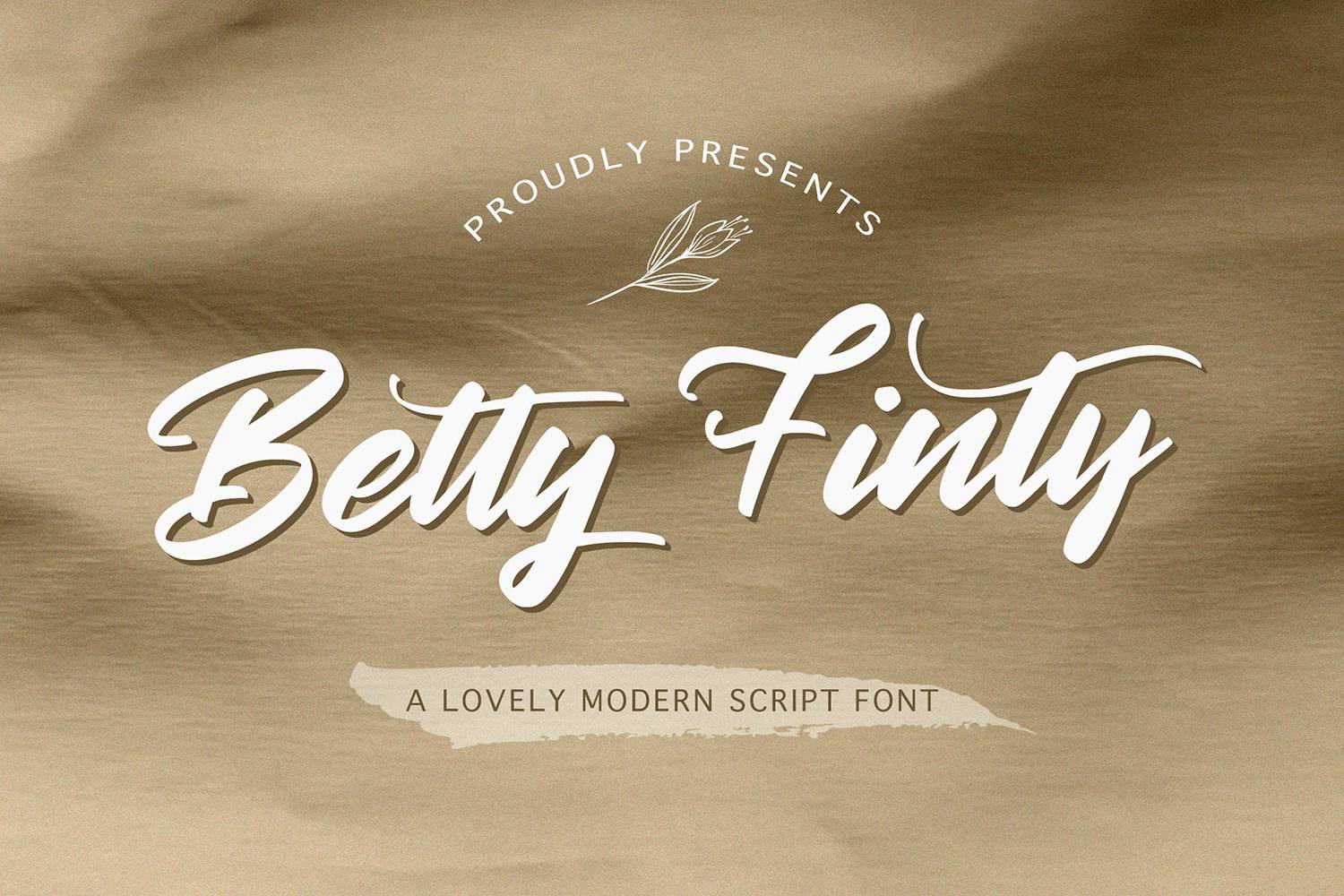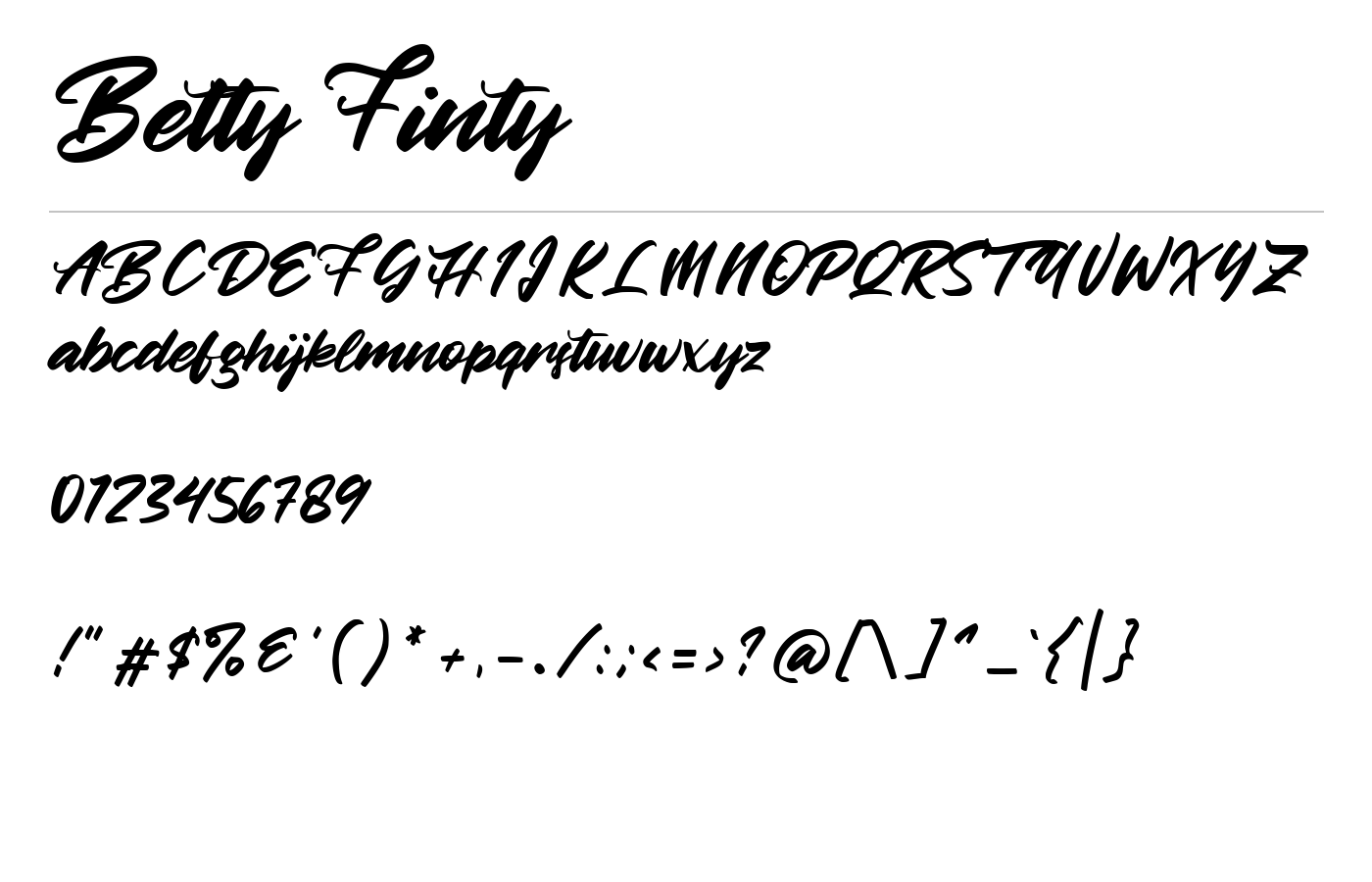
Betty Finty is a bold, flowing script font with a playful and casual feel, featuring smooth, rounded strokes and varying line thickness that mimic natural handwriting. Its energetic yet legible style makes it perfect for branding, invitations, or headlines where a friendly yet dynamic look is desired. This font shines in creative and personal projects that benefit from a lively and approachable touch.
Betty Finty Font
About Betty Finty Font
| Font family | Betty Finty Font |
| Designer | StringLabs |